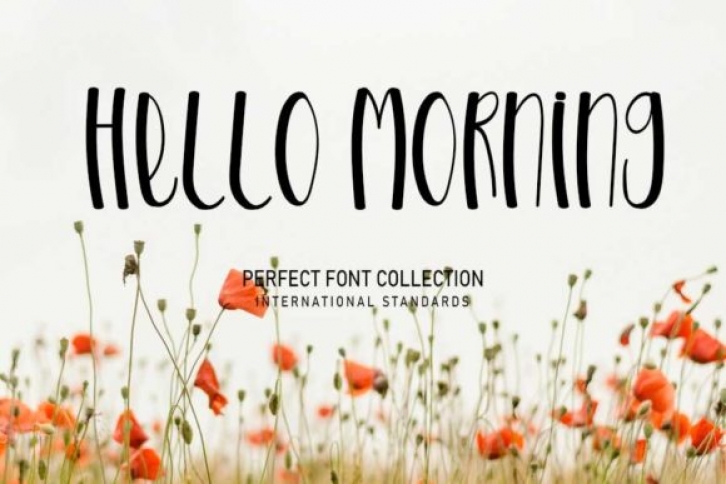
Hello Morning is a sweet, flowing and festive handwritten font. This gentle font will look gorgeous on a variety of design ideas. Hello Morning was designed to enhance the beauty of your projects.